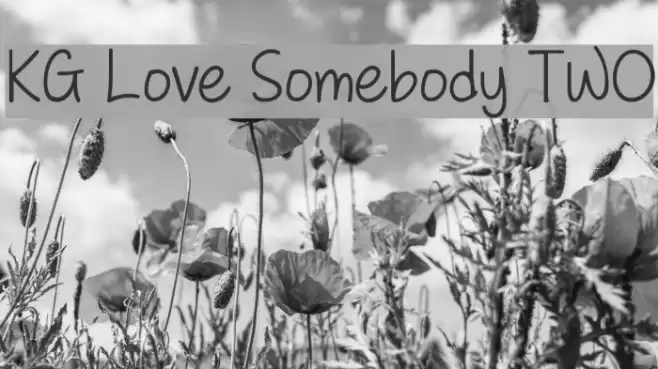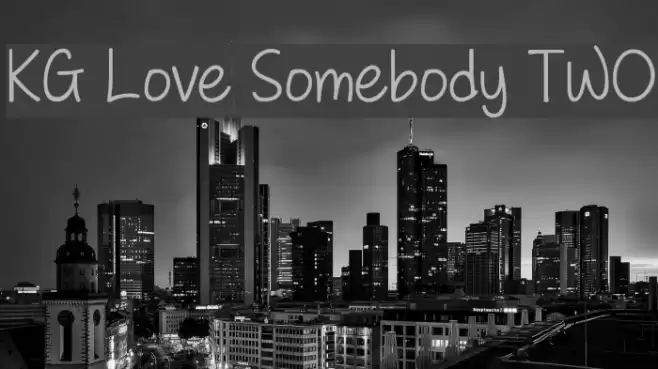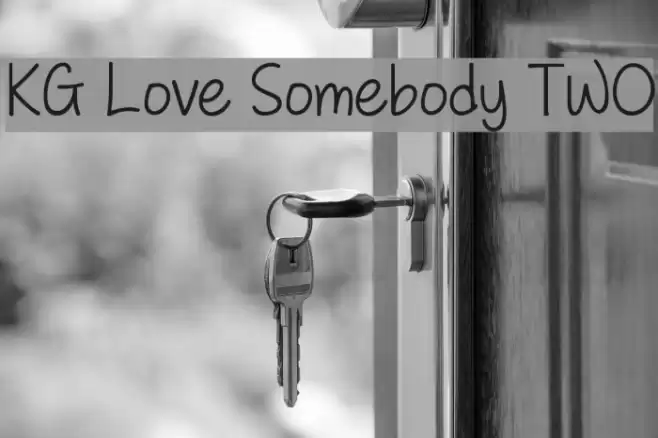
KG Love Somebody TWO Font
KG Love Somebody TWO Description
This font features a playful and casual handwritten style, characterized by its smooth, rounded edges and slightly irregular letterforms. The uppercase and lowercase letters maintain a consistent flow, giving it a friendly and approachable appearance. The numerals and special characters are designed to match the overall aesthetic, ensuring a cohesive look across all text. Its informal nature makes it ideal for projects that require a personal touch or a relaxed vibe.
A playful, casual handwritten font with smooth, rounded edges from Valentine's Day fonts.
- Proposed Projects: Ideal for greeting cards, children's books, personal blogs, and informal branding projects.
- Overall Style: Casual
- Use Case: Headlines, Informal text, Personal projects